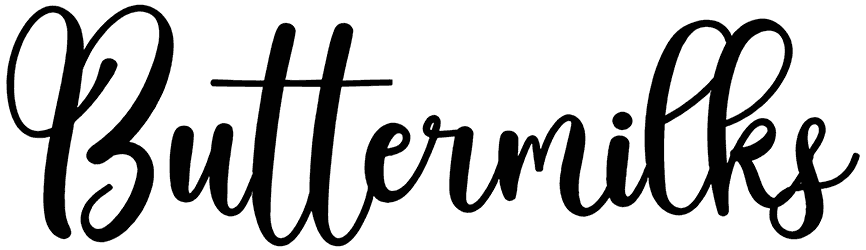
Buttermilks Font
Choosing a ravishing calligraphy font like this one will be a nice decision to give an elegant visual to your text. The Buttermilks font has a delicate and soft letterform that is going to convey a chic vibe to your visitors. This romantic font, with its pretty feeling, is able to make your Christmas Instagram post memorable.